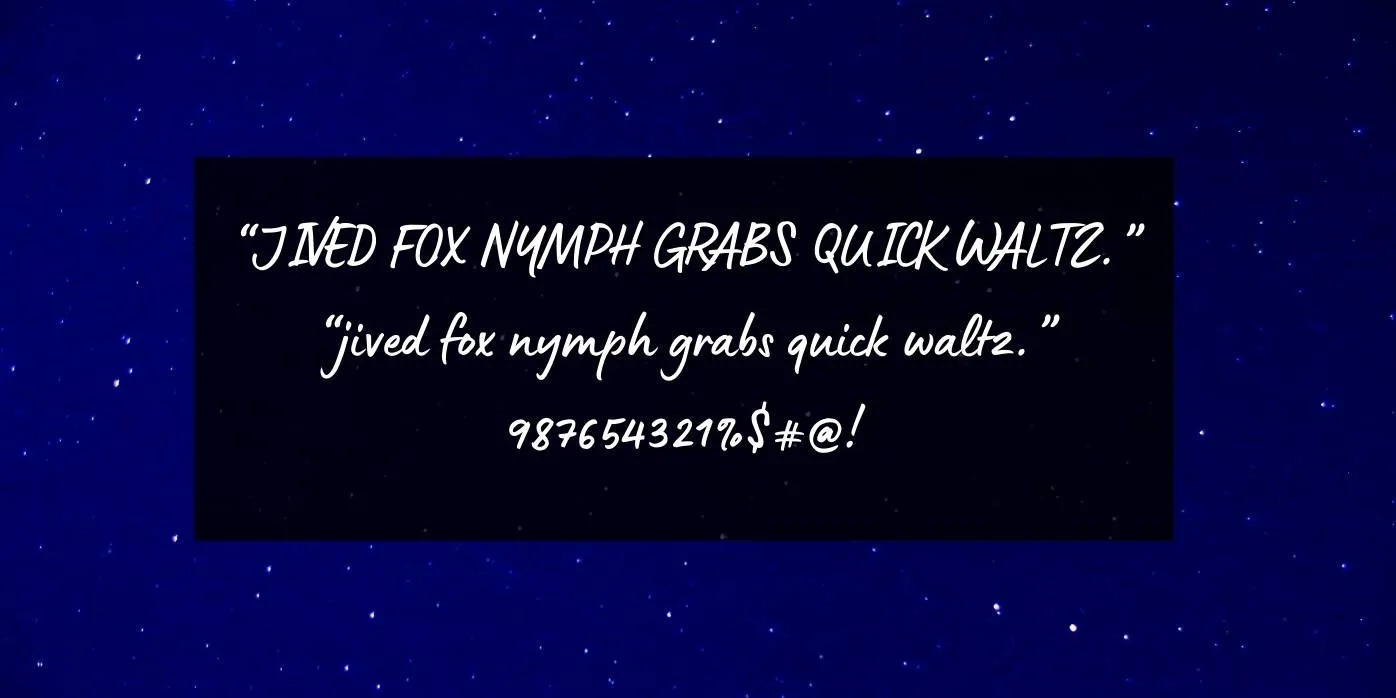
Lumios Marker Font
Today, we present Lumios Marker Font which belongs to the script family. This typeface has two hundred and fifty-six characters. And supports many international languages. It was released by Type Associates on September 30, 2019.
It has neat and clean textures. Lumios Marker Font is a hand-drawn typeface with a natural feel. The shapes of the letters are based on simple geometric forms. This gives the font a clean and modern look.
The Lumios Marker Typeface a medium weight and is perfect for use in body text. It can also be used for headlines and titles. The font comes in two styles: regular and italic. This typeface will provide the very classic facility of an online generator tool that is suitable for different types of graphic designs.